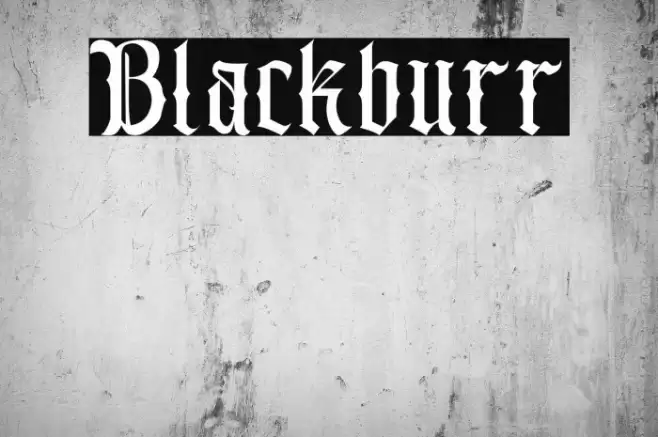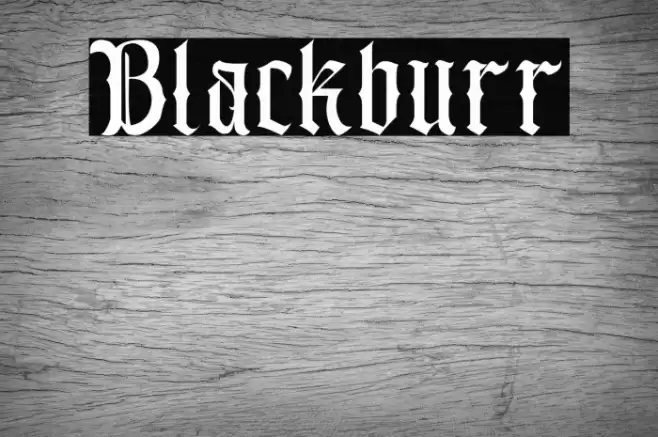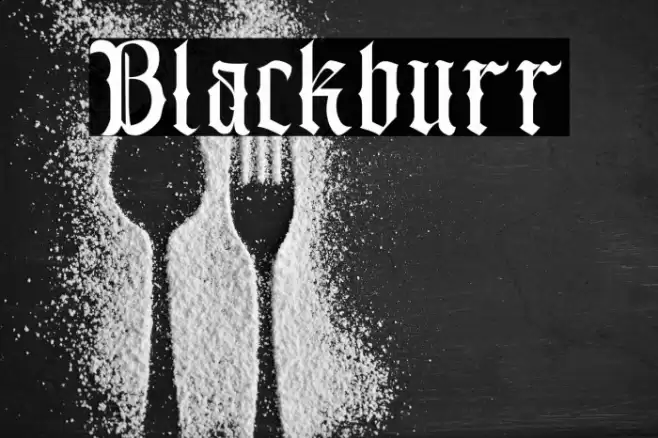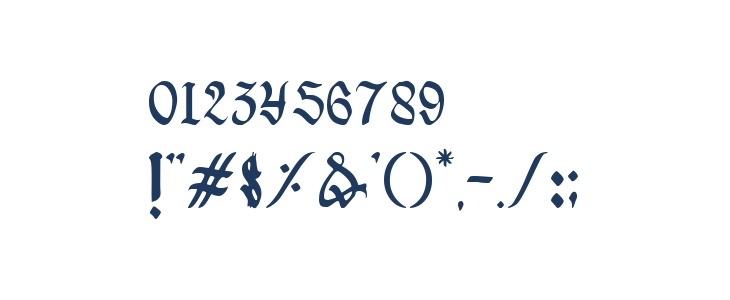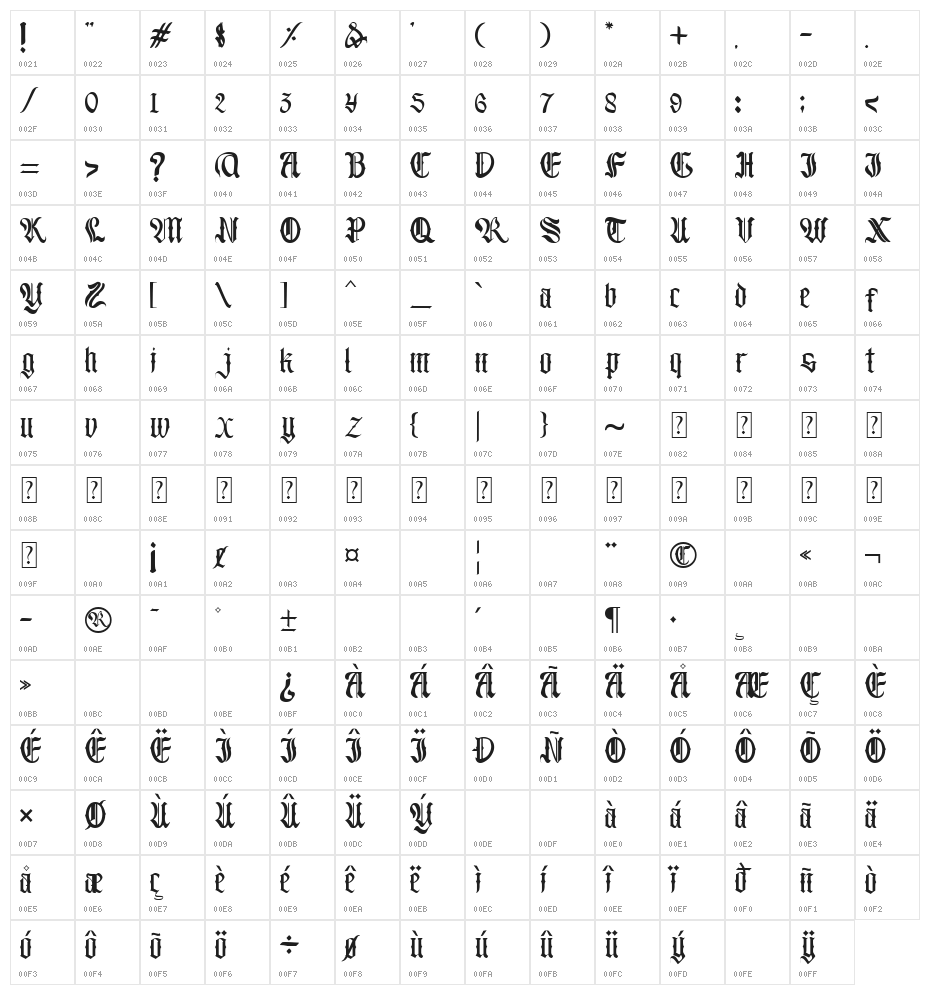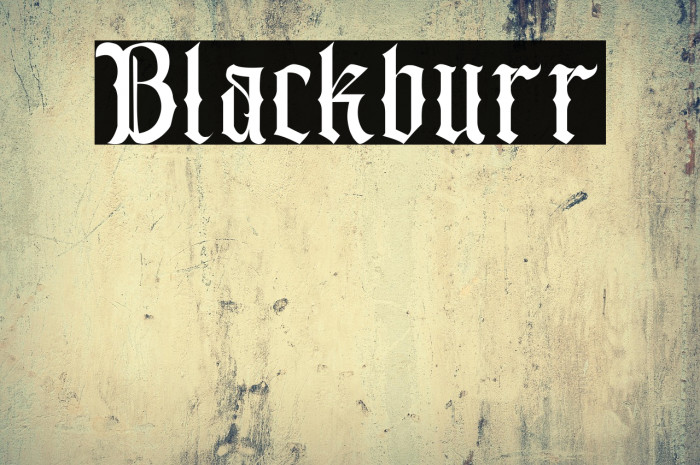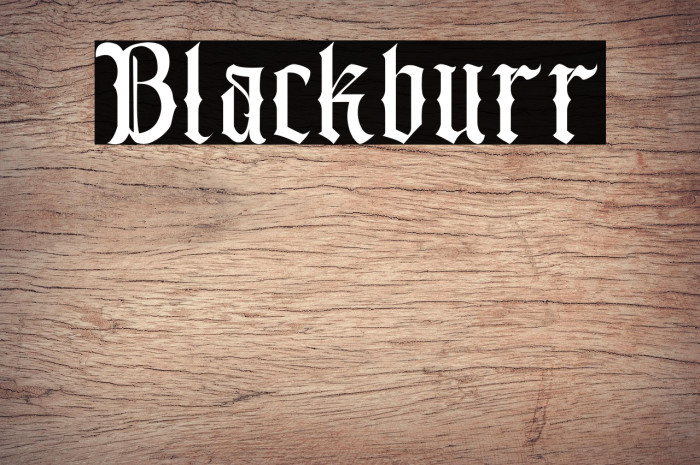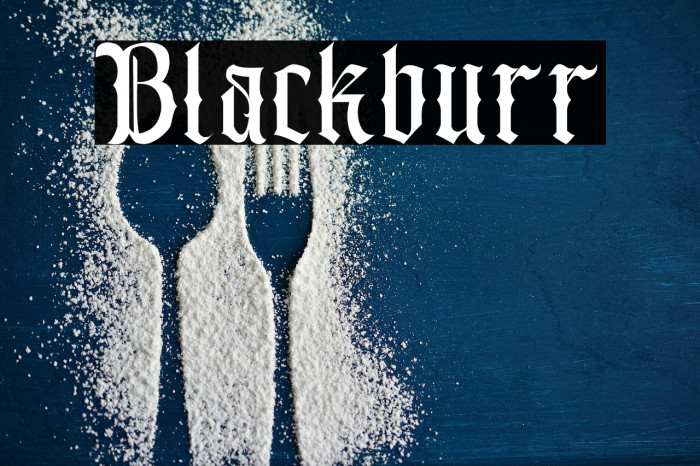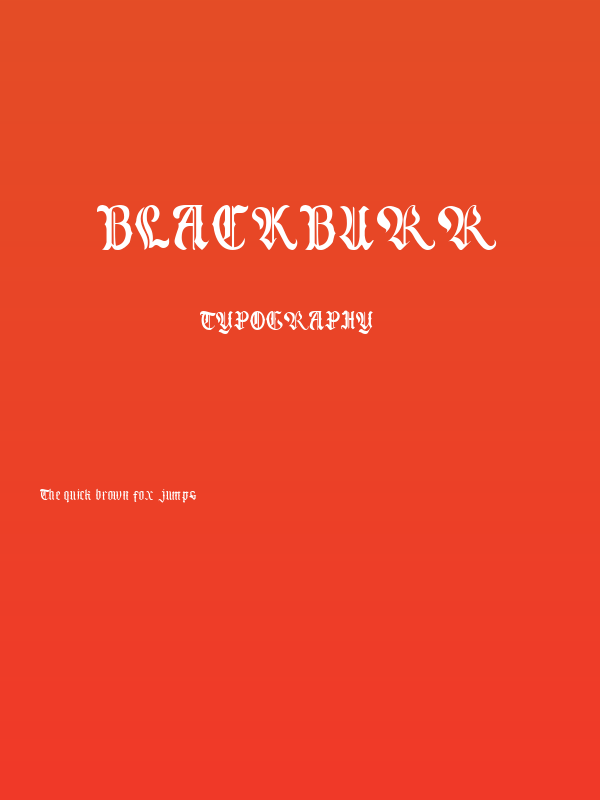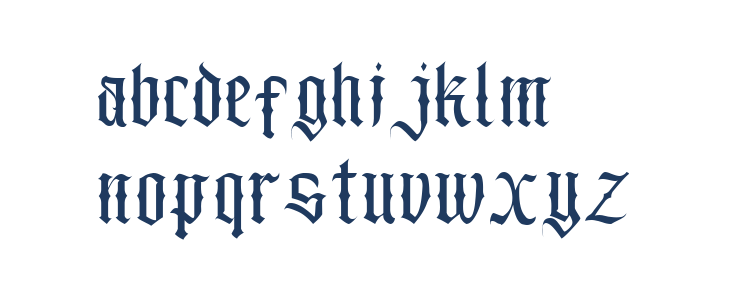
Blackburr Font
Blackburr Description
This font exhibits a classic blackletter style, characterized by its intricate and ornate letterforms. The strokes are bold and angular, with a high contrast between thick and thin lines, giving it a dramatic and historical appearance. The uppercase letters are particularly elaborate, featuring sharp serifs and decorative elements that enhance their gothic aesthetic. The lowercase letters maintain the same level of detail, ensuring consistency across the typeface. Numbers and special characters are designed to match the overall style, making it suitable for projects that require a touch of medieval or traditional flair.
A bold, high-contrast blackletter font with intricate, gothic-inspired details from Regular fonts.
- Proposed Projects: Ideal for use in historical documents, gothic-themed designs, branding for vintage products, or any project seeking a medieval aesthetic.
- Overall Style: Vintage
- Use Case: Logos, Headlines, Decorative text